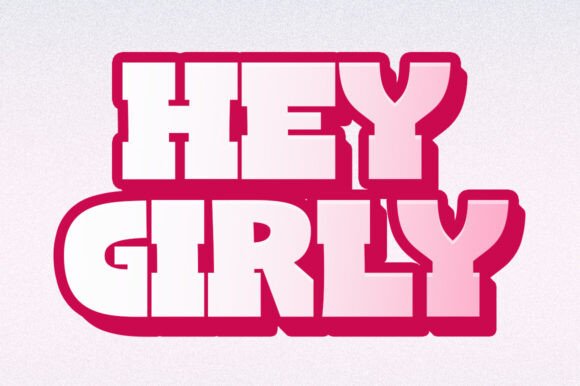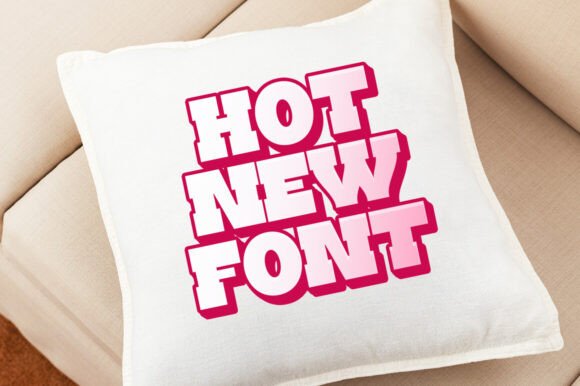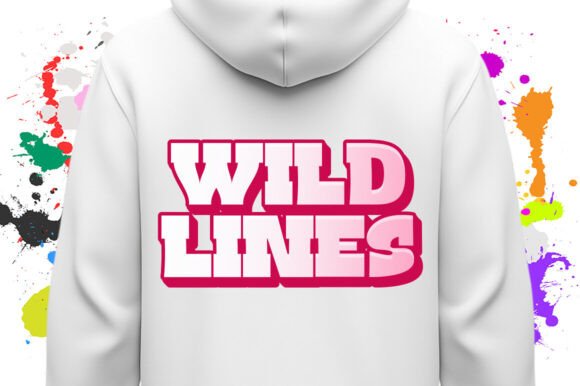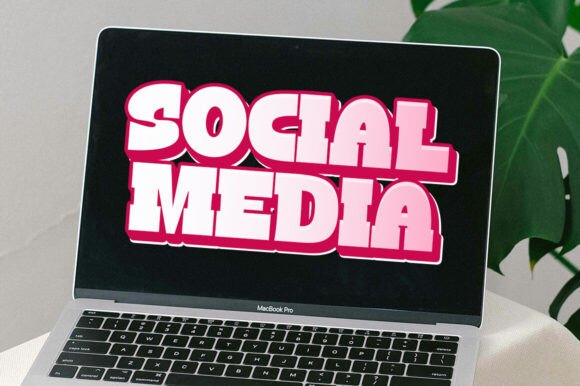
The Magical World of Girly Love Font
Have you ever been in the middle of a design project, and suddenly, you just can’t seem to find the right font? I recall a particularly frustrating experience when a client asked for a custom wedding invitation design. I had a clear vision of the style, but the font just wasn’t cooperating. That’s when I stumbled upon Girly Love Font, and it completely transformed my design. In this article, we’ll dive into the whimsical world of Girly Love, exploring its features, uses, and everything in between.
A Personal Review of Girly Love Font
So, what makes Girly Love so special? Let’s take a closer look.
What I Love About Girly Love ✨
- ✅ Its unique blend of whimsy and quirkiness, making it perfect for creative projects
- ✅ The font’s PUA coding, which allows for seamless exploration of its unique glyphs and intricate ligatures
- ✅ The way it adds a radiant sparkle to any design, making it perfect for projects that need a touch of magic
- ✅ Its versatility – Girly Love works beautifully for titles, headings, and even short paragraphs
While Girly Love is an amazing font, it’s not without its limitations. Here are a few things to keep in mind:
- ⚠️ The font’s playful nature might not make it the best choice for very formal or professional projects
- ⚠️ Some of the glyphs and ligatures might require a bit of experimentation to get just right
A Practical Guide to Using Girly Love Font
The Backstory of Girly Love Font
While the true origins of Girly Love are shrouded in mystery, it’s said that the font was created by a team of designers who wanted to capture the essence of feminine charm. Inspired by vintage typography and modern calligraphy, Girly Love was born – a font that’s equal parts sweet, sassy, and sophisticated.
| Font Name | Girly Love Font |
| Author | IM Studio |
Q: What is PUA coding, and why is it important?
PUA (Private Use Area) coding allows font creators to include custom glyphs and characters that aren’t part of the standard Unicode range. This means that Girly Love’s unique ligatures and glyphs can be accessed easily, making it a more versatile font.
Q: Is Girly Love suitable for body text?
While Girly Love is stunning for titles and headings, it’s not necessarily the best choice for body text. Its playful nature makes it more suited for short paragraphs or accent text.